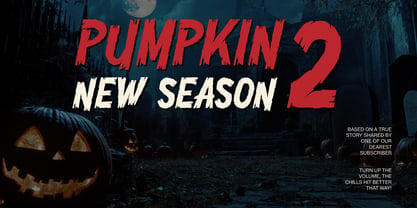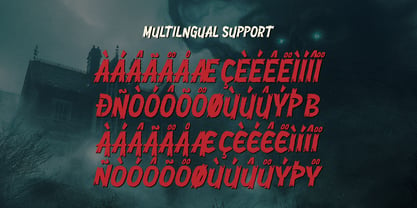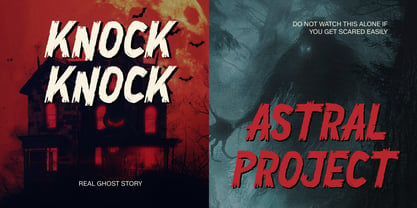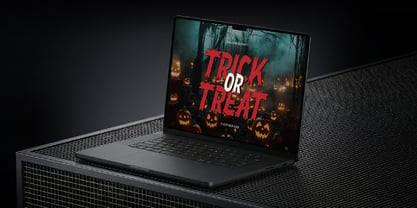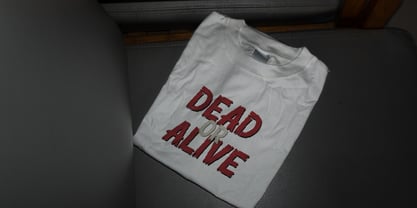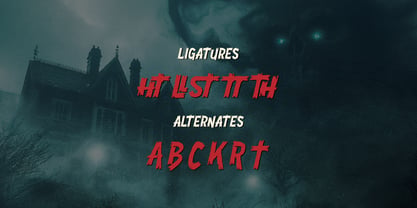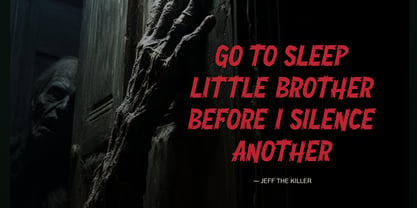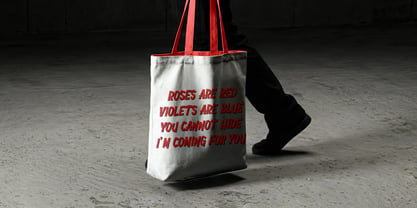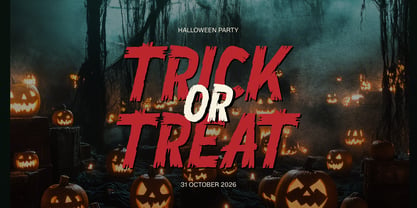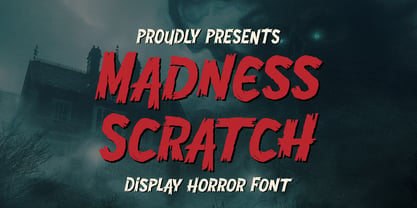
Madness Scratch
Madness Scratch | Display Horror Font, from Gracetypestudio, suitable for any projects such as: logos, branding projects, homeware designs, product packaging, mugs, quotes, posters, shopping bags, t-shirts, book covers, name card, invitation cards, greeting cards, label, photography, watermark, special events, and all your other lovely projects that need a Horror Font taste.